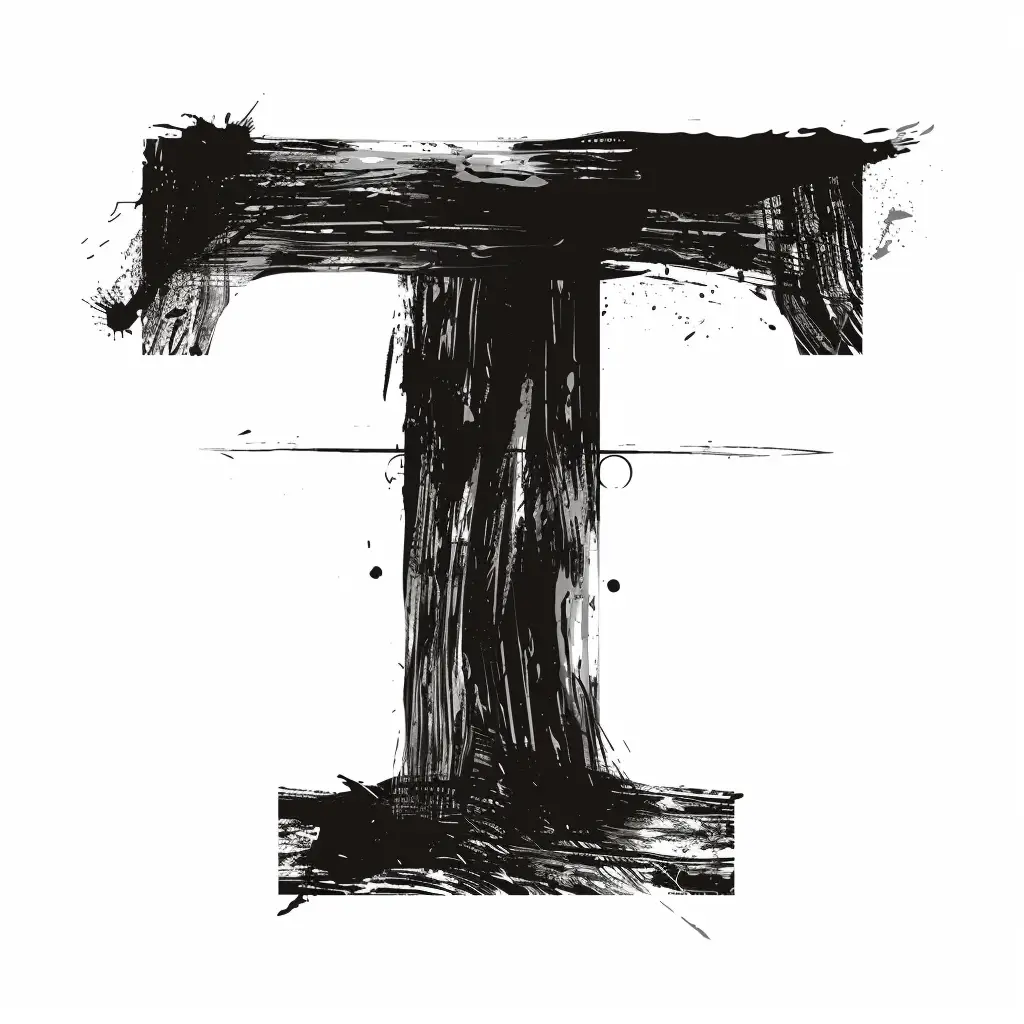
The image features a stylized, abstract representation of the letter "T" rendered in a rough, brushstroke-like black ink style against a white background. The design incorporates textured, uneven strokes, splatters, and subtle geometric elements like small circles and lines, creating a dynamic, artistic feel. The high-contrast black-and-white color scheme emphasizes the bold, expressive nature of the typography.